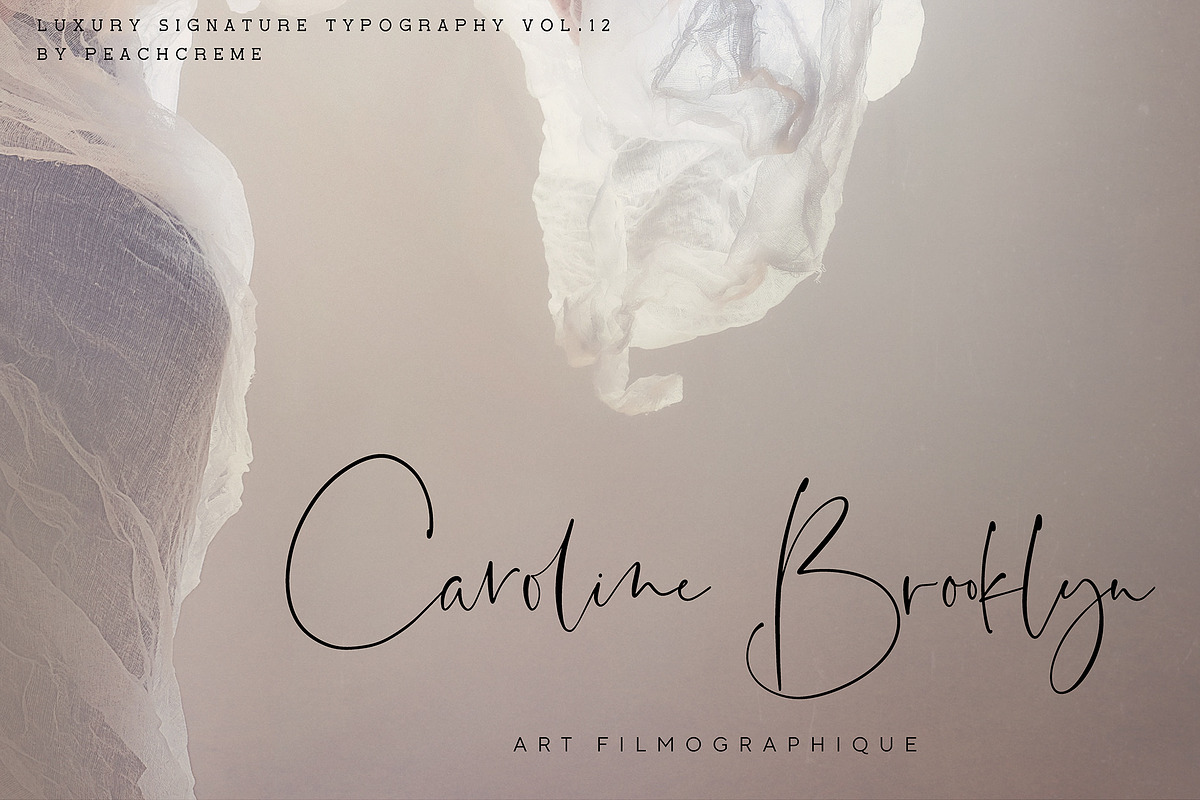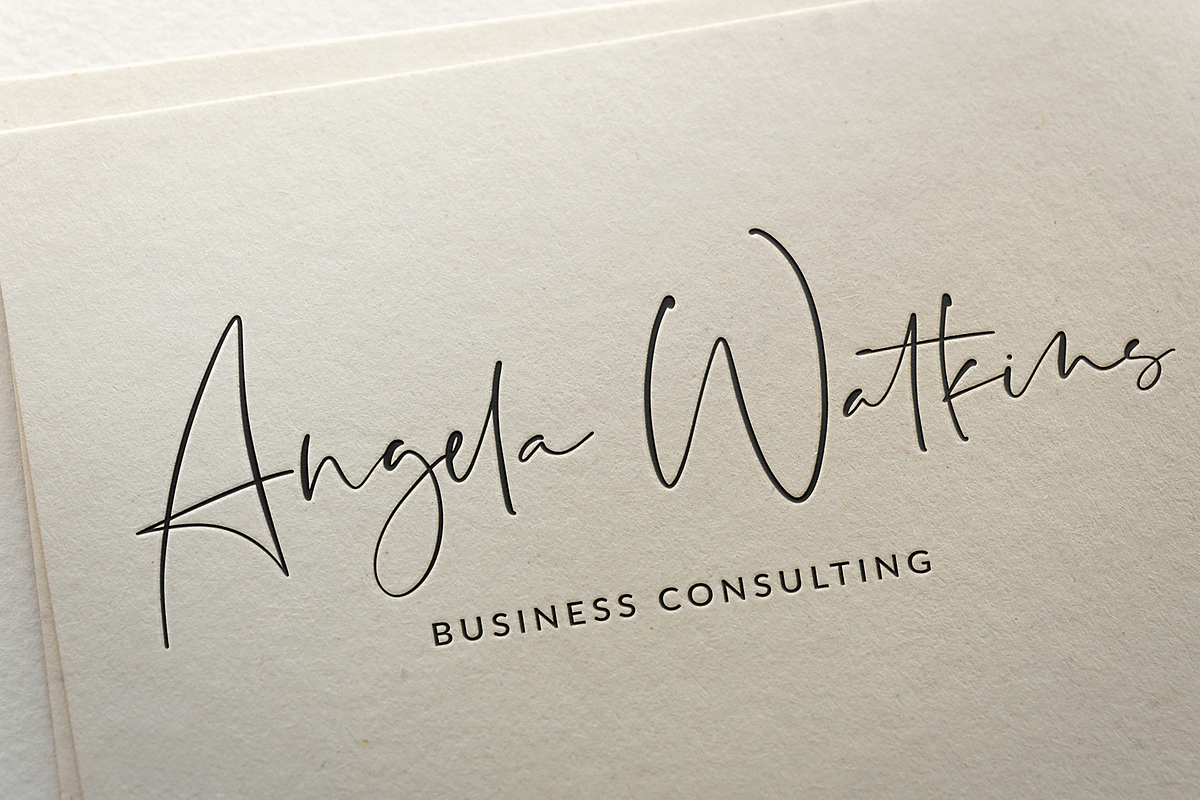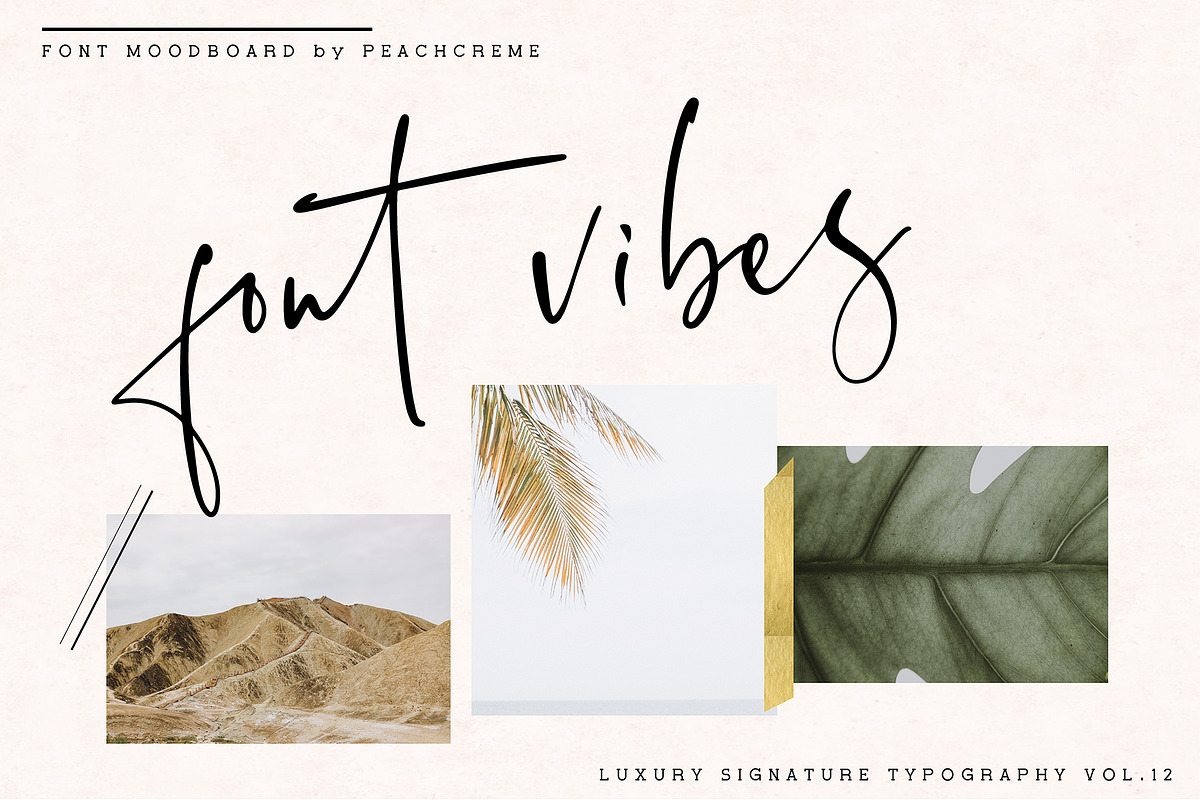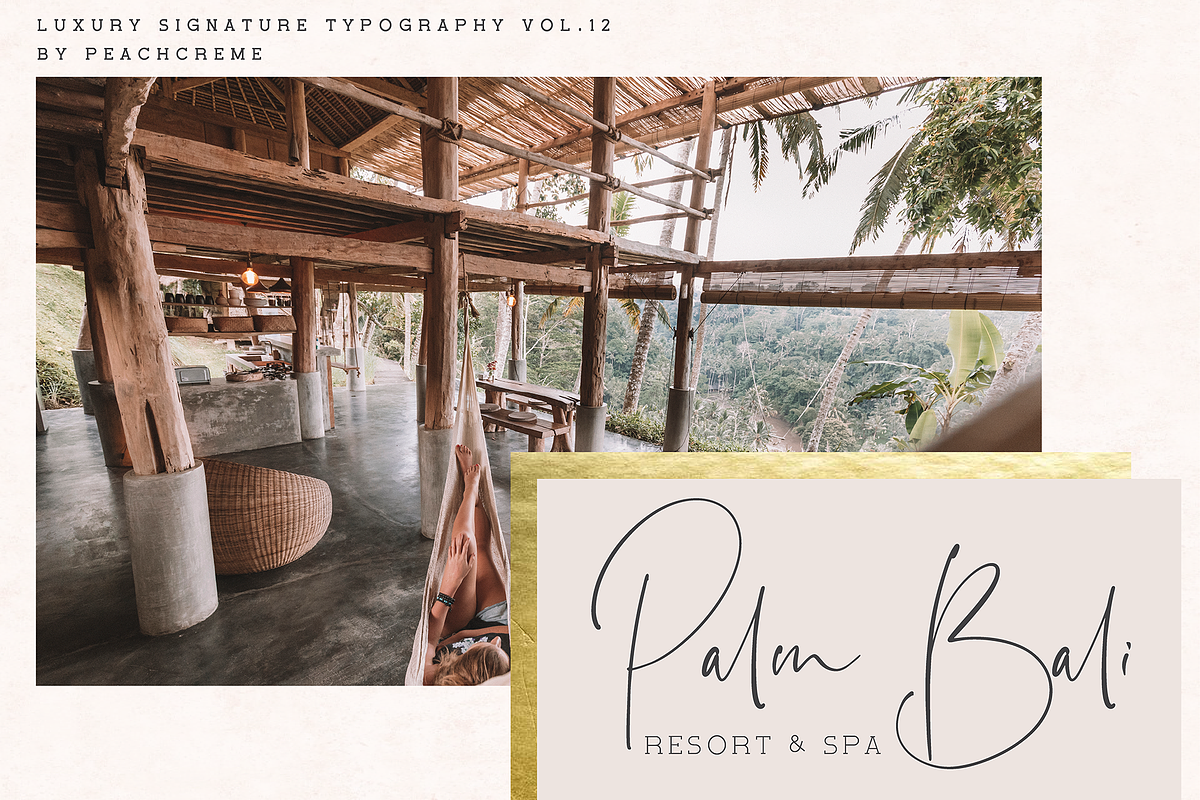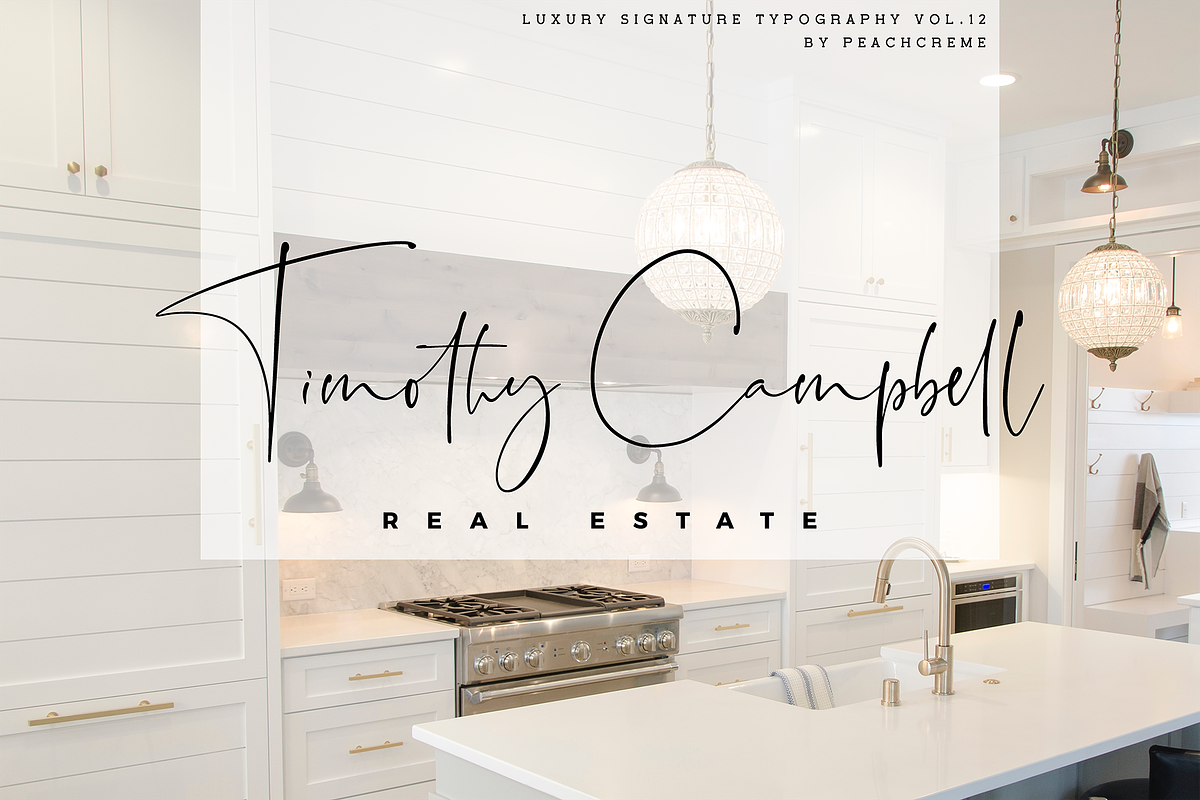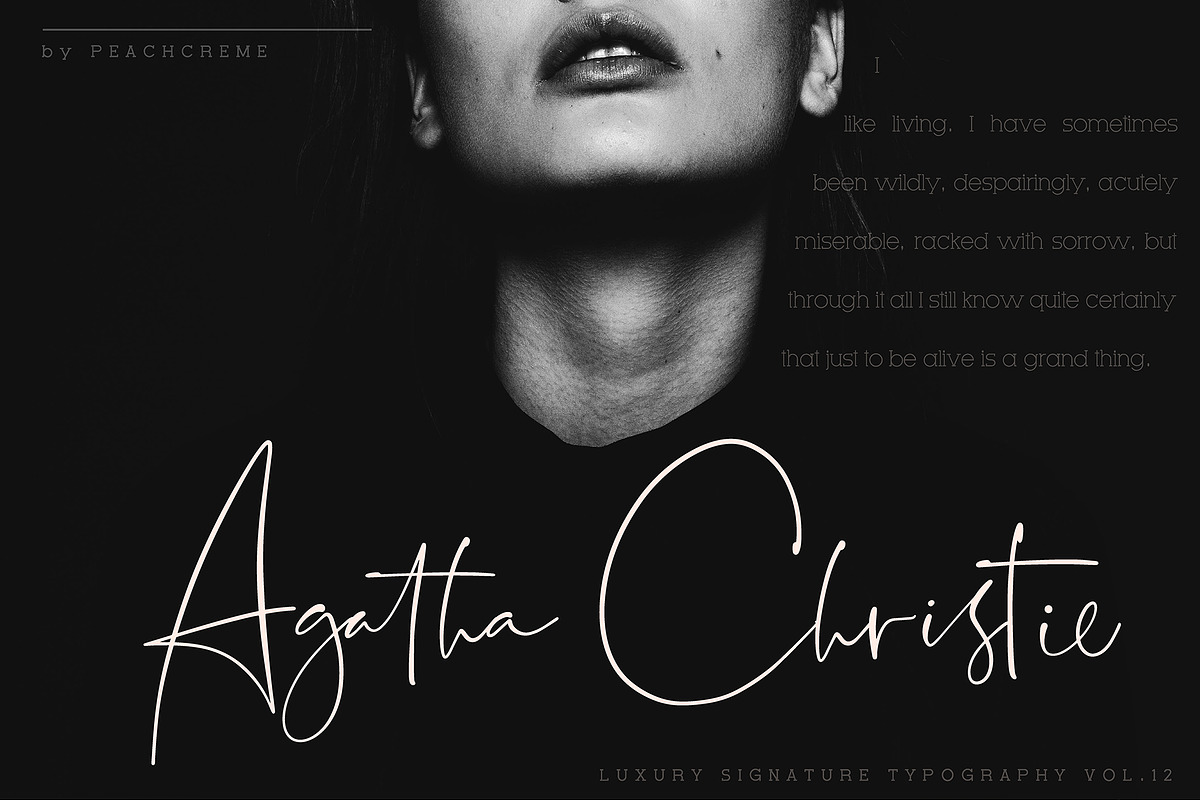
Santorini is a luxury signature font that is perfect for weddings, fashion, and beauty. It is elegant and versatile, making it a great choice for a variety of design projects.
The font has OpenType features and includes ligatures, alternatives, numbers, and punctuation, and also supports other languages. This makes it a user-friendly font that is easy to work with.
To keep the maximum real hand-lettered effect, there were created 106 ligatures(you can see them among presentation pictures).